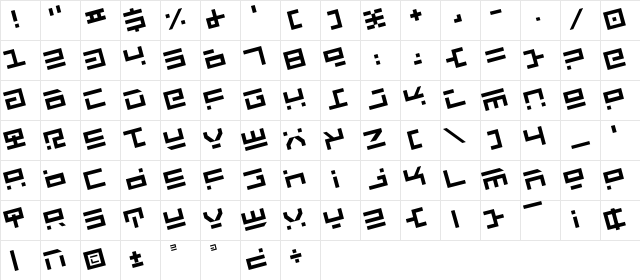
Complete Rocket Type Rotate glyph index. Displaying only characters natively supported by Rocket Type Rotate font.
Rocket Type is a composed and adaptable typeface that performs quietly and consistently across a wide range of design contexts.